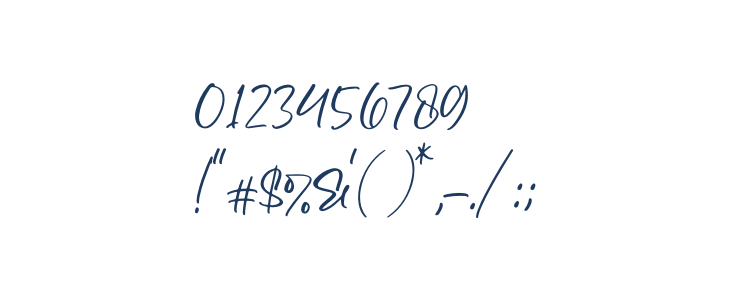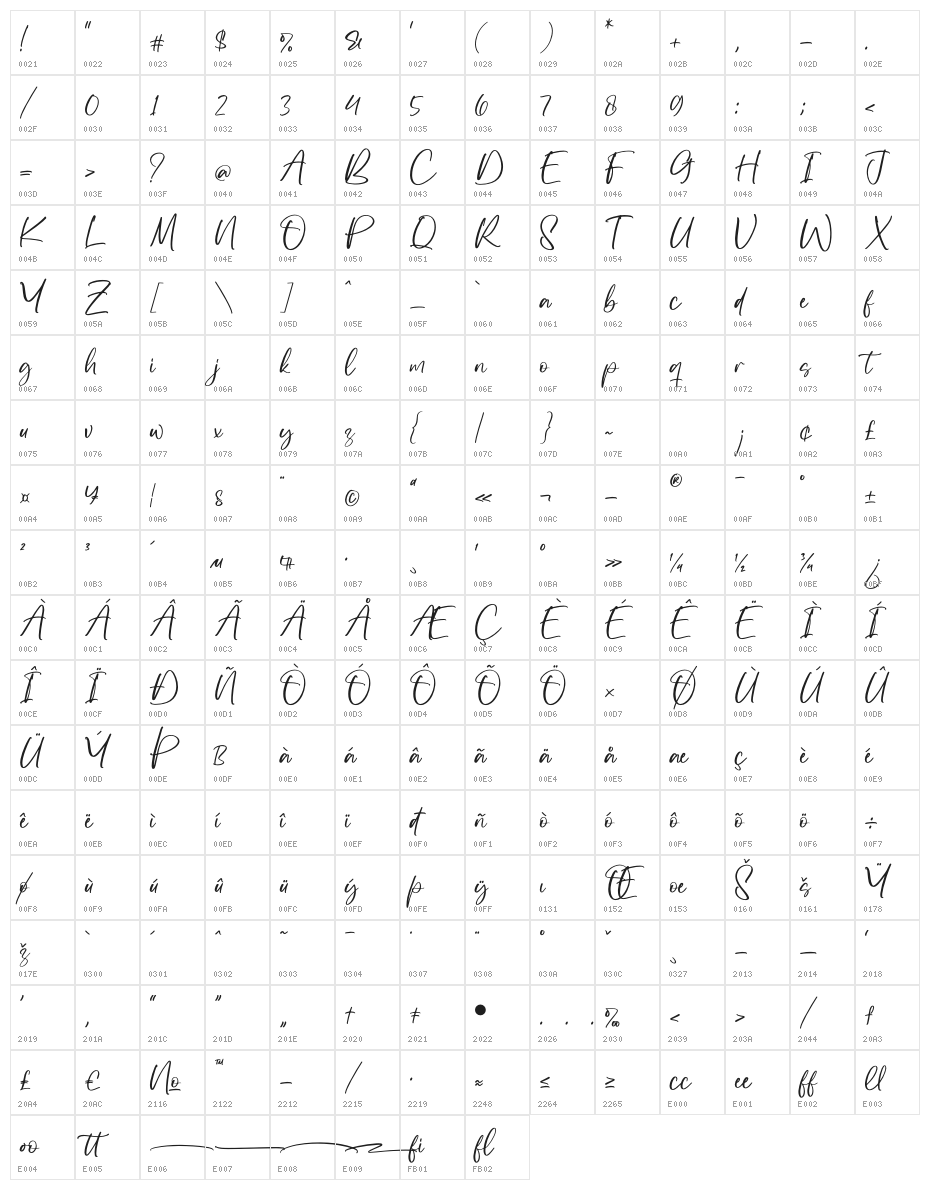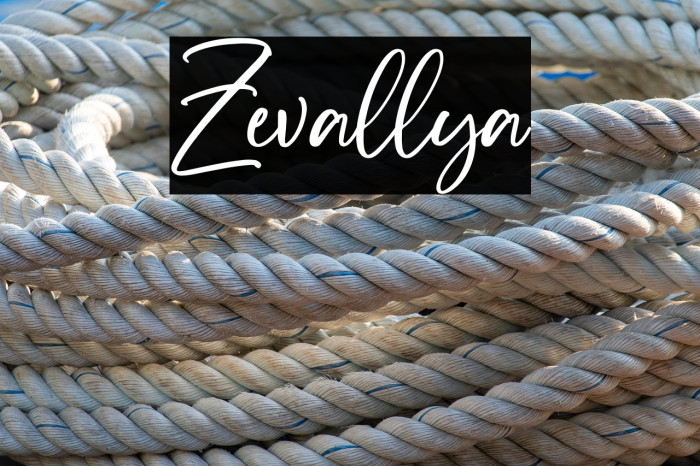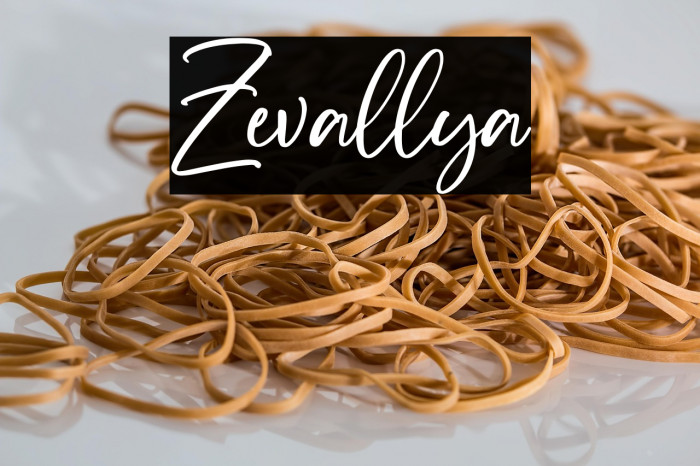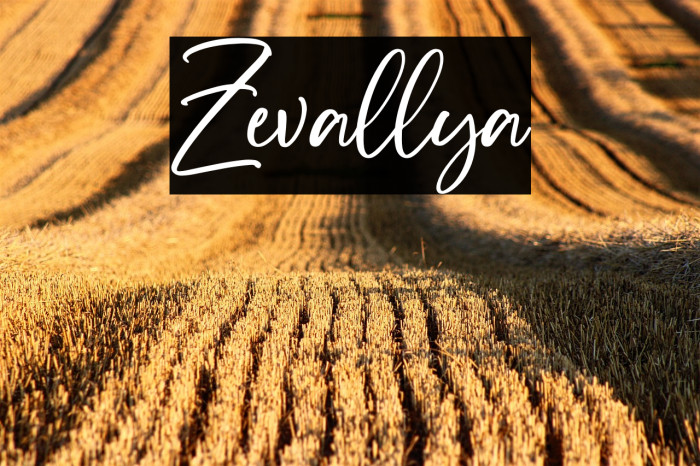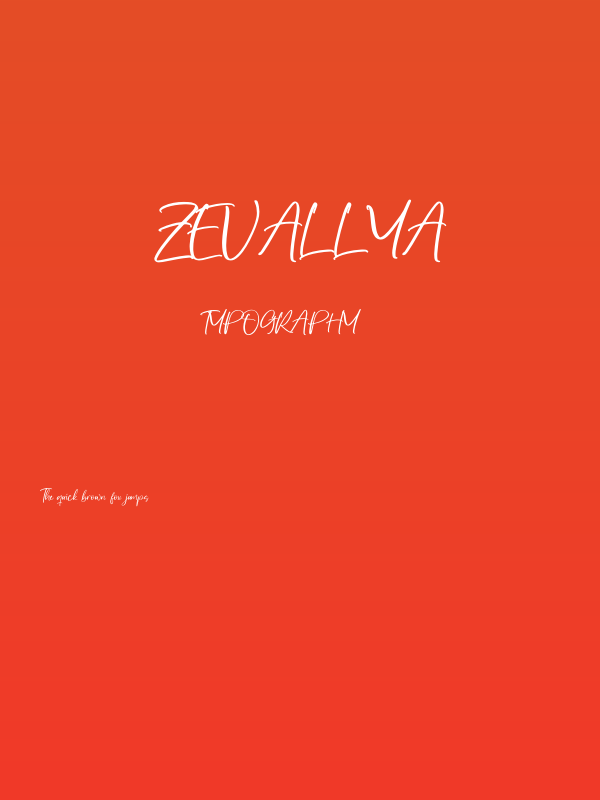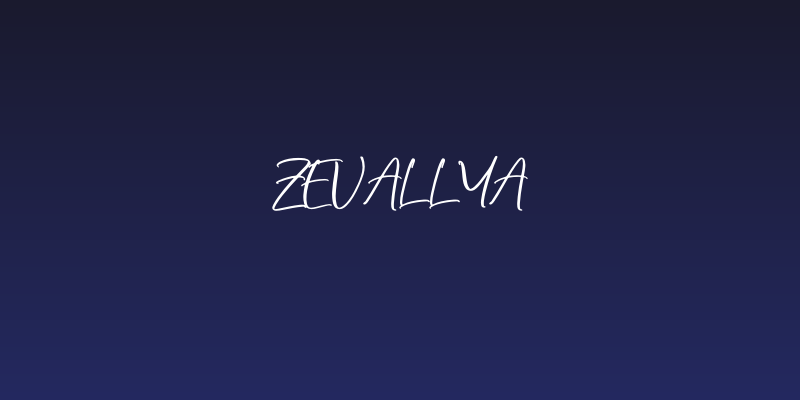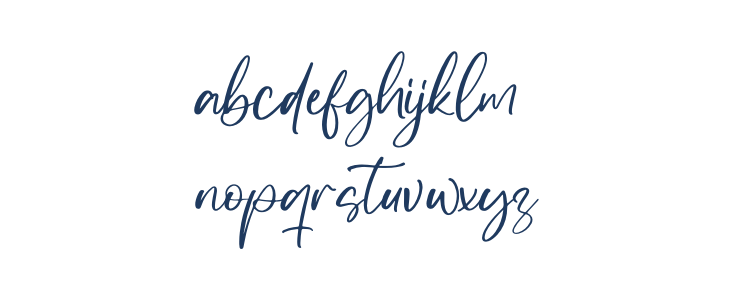
Zevallya Font
Zevallya Description
This font exhibits a lively and dynamic handwritten style, characterized by its fluid and cursive strokes. The letters are connected, giving it a seamless and flowing appearance. The uppercase letters are bold and expressive, while the lowercase letters maintain a consistent rhythm and elegance. The numerals are distinct yet harmonize well with the overall script style. Special characters are creatively integrated, adding to the font's versatility. The font's playful yet sophisticated nature makes it suitable for a variety of creative applications.